How To Make Sci Fi Movie Poster Typography Stand Out
1. Introduction
In the world of film marketing, movie posters are the first handshake between your story and the audience. For science fiction films, typography plays an even greater role—it sets the futuristic tone, sparks curiosity, and immerses viewers before they even watch the trailer. But how do you make sci-fi movie poster typography stand out in a crowded market?
This guide will walk you through strategies, font choices, and design principles to help your typography shine and give your poster the cinematic edge it deserves.
2. Why Typography Matters in Sci-Fi Movie Posters
Typography isn’t just about letters—it’s about atmosphere. In sci-fi design, fonts help audiences feel the technology, futurism, and mystery behind the story. A poorly chosen typeface can make your poster feel generic, while the right one creates instant recognition and hype.
Think of iconic films like Blade Runner or The Matrix—their typography is unforgettable and strongly tied to the movie’s identity.
3. Characteristics of Effective Sci-Fi Fonts
When choosing a sci-fi font for poster design, look for these characteristics:
- Futuristic style – geometric, sharp, or techno-inspired letterforms.
- Strong readability – bold enough to stand out at a distance.
- Unique flair – unusual strokes, angles, or spacing to feel futuristic.
- Versatility – works across poster sizes, merchandise, and digital campaigns.
For example, fonts like Exo Space Futuristic Font capture modern sci-fi vibes with clean lines and sharp edges.
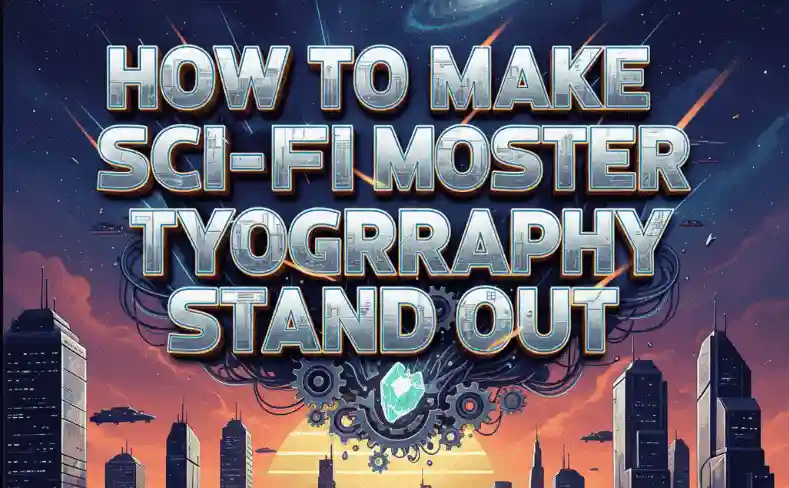
4. Tips to Make Sci-Fi Poster Typography Stand Out
4.1 Use Futuristic Fonts with Personality
Avoid generic sans-serif fonts. Instead, choose typefaces with sci-fi elements like angular cuts, neon-inspired strokes, or digital glitch aesthetics.
4.2 Play with Scale and Hierarchy
Big, dramatic titles capture attention first. Pair them with smaller subtitles or taglines to create balance and storytelling depth.
4.3 Contrast Fonts with Visual Effects
Blend typography with background effects like neon glows, metallic textures, or holographic overlays. This emphasizes the futuristic mood without overpowering the text.
4.4 Keep Readability at the Core
No matter how futuristic your font looks, ensure the movie title is clear at a glance. Viewers should recognize the name instantly, even from a distance.
4.5 Experiment with Colors and Textures
Metallic gradients, neon greens, and cosmic purples often work well in sci-fi posters. Pair these with futuristic textures like chrome or digital grids.
5. Recommended Sci-Fi Fonts for Poster Design
- Exo Space Futuristic Font – clean, sharp, and futuristic.
- Quantum Sci-Fi Display Font – bold, modern, and cinematic.
- Nebula Techno Font – ideal for titles with a digital or galactic vibe.
- Auralis Futuristic Typeface – sleek and modern, perfect for minimalistic sci-fi posters.
6. Common Mistakes to Avoid in Sci-Fi Typography
- Overcomplicating the design – too many effects can make text unreadable.
- Using cliché fonts – avoid overly common “sci-fi” typefaces that look amateur.
- Ignoring scalability – typography must look good on both small social media previews and large theater posters.
7. Final Thoughts
Creating stand-out sci-fi movie poster typography requires a balance of futuristic style, readability, and creativity. By selecting the right fonts, using visual hierarchy, and experimenting with textures, you can design posters that not only grab attention but also immerse viewers in the film’s universe.